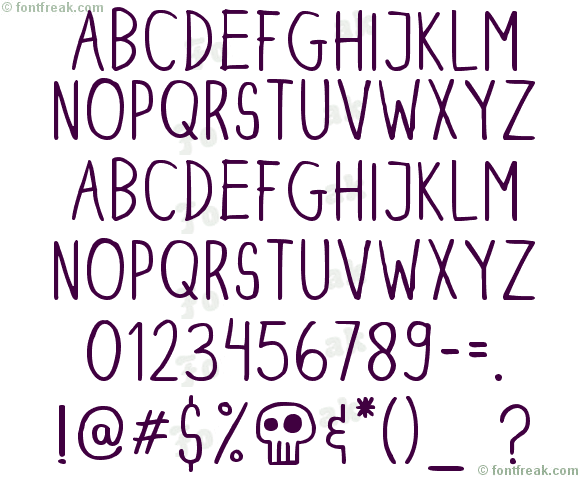
DINSKI CASUAL CONDENSED
About DINSKI CASUAL CONDENSED
DINSKI CASUAL CONDENSED is a distinctive display typeface crafted by Emeralda Noor Achni Halilintar, characterized by its playful, casual style that adds a unique flair to any design project. This font falls under the category of sans-serif, featuring a condensed structure that makes it both stylish and functional. The strokes are moderately weighted, providing a sense of balance, while the spacing between characters is thoughtfully designed to maintain readability without sacrificing aesthetic appeal. Its rounded edges and informal style create a friendly vibe, making it ideal for various applications.
Usage of the DINSKI CASUAL CONDENSED font is versatile, making it suitable for a range of creative projects. It works wonderfully for restaurant menus, where its casual charm can enhance the dining experience. Additionally, it’s an excellent choice for wedding invitations, bringing a modern yet approachable feel to such a special occasion. Graphic designers might find it perfect for branding materials, as it communicates a relaxed yet professional image. Furthermore, this font can be effectively used for children’s book covers, adding a whimsical touch that appeals to younger audiences.
What sets the DINSKI CASUAL CONDENSED font apart is its ability to blend a casual aesthetic with professional functionality. It stands out as an ideal choice for those looking to create memorable and engaging designs. For anyone interested in elevating their projects, the DINSKI CASUAL CONDENSED font free download is a fantastic option to consider.